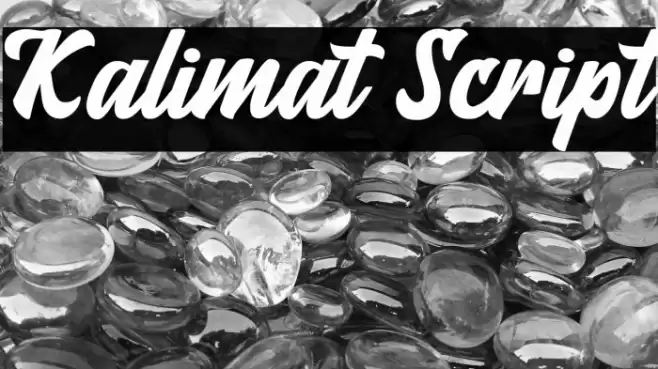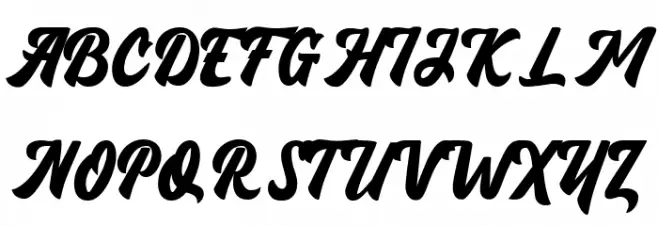
Kalimat Script Font
Kalimat Script Description
This script font features a bold and flowing style, characterized by its smooth, cursive strokes that connect seamlessly between letters. The uppercase letters are prominent and elegant, with a slight slant that adds a dynamic feel. The lowercase letters maintain a consistent flow, enhancing readability while preserving the artistic flair. The font exhibits a high contrast between thick and thin strokes, giving it a striking appearance. Its decorative nature makes it suitable for creative projects that require a touch of elegance and sophistication. The overall design is both modern and timeless, making it versatile for various applications.
A bold, flowing script font with high contrast and elegant cursive strokes from Uncategorized fonts.